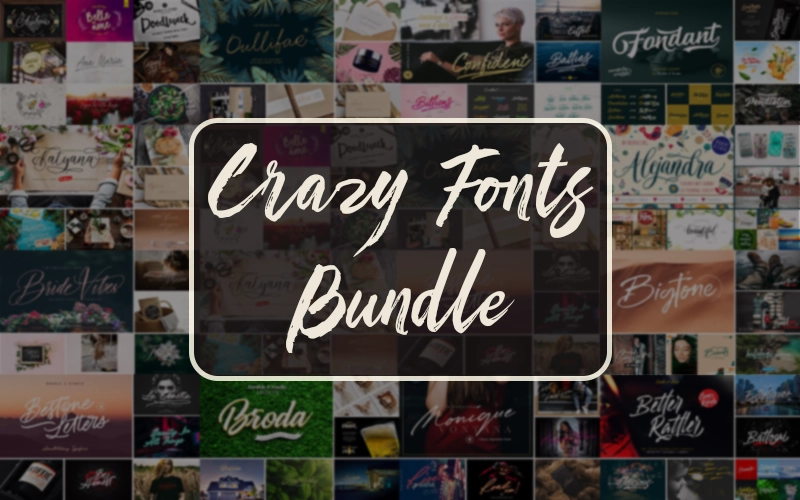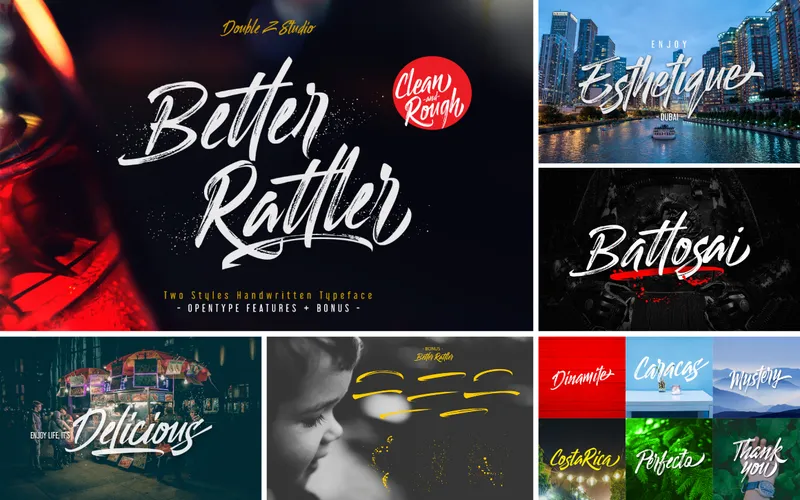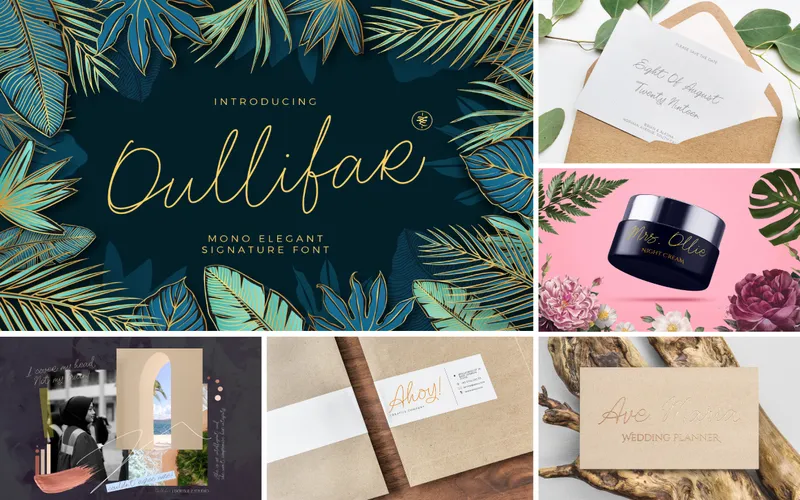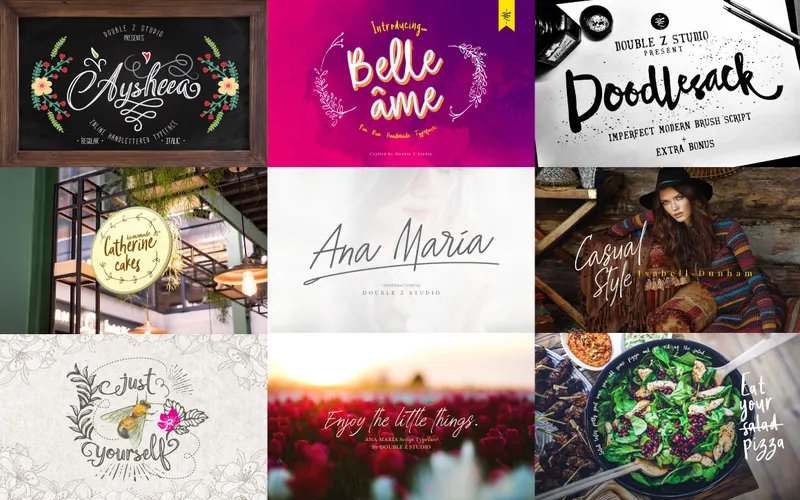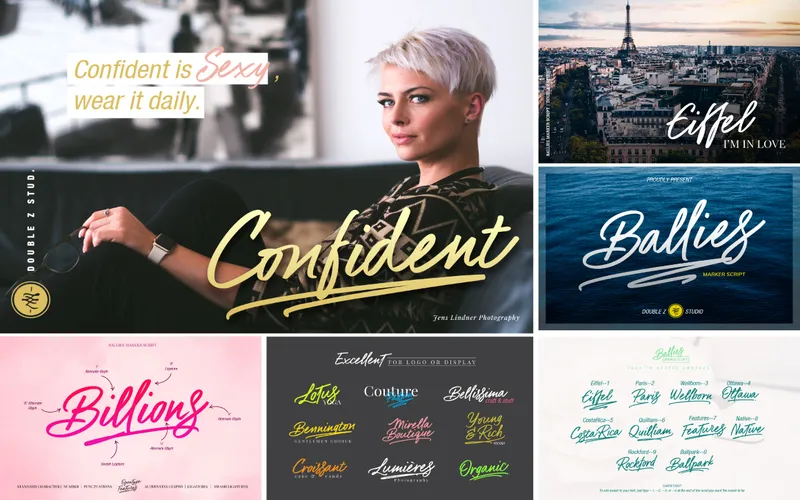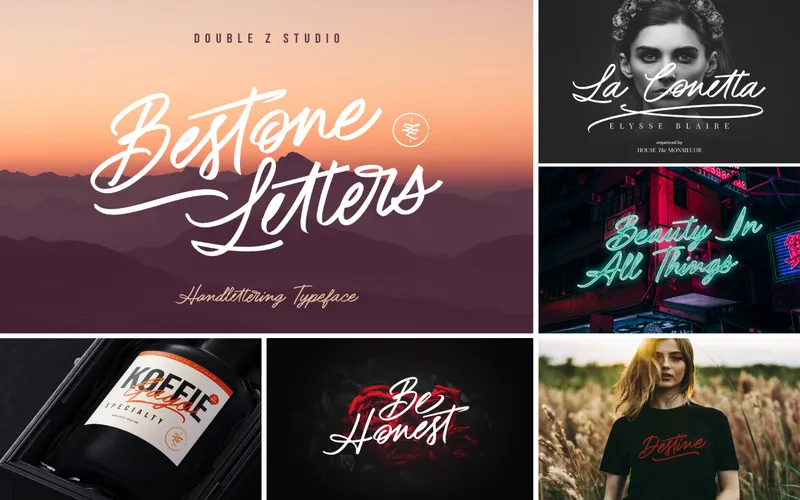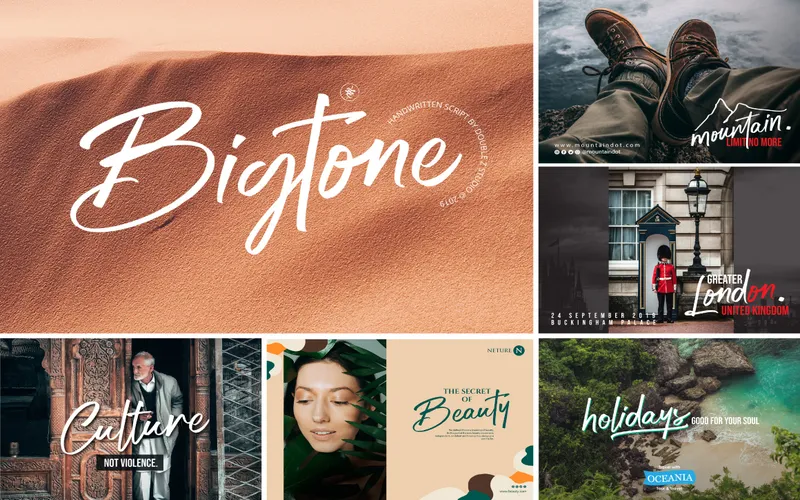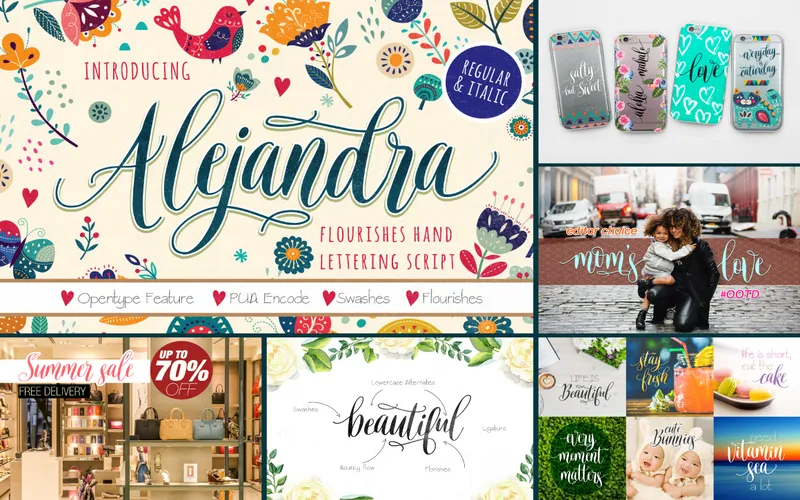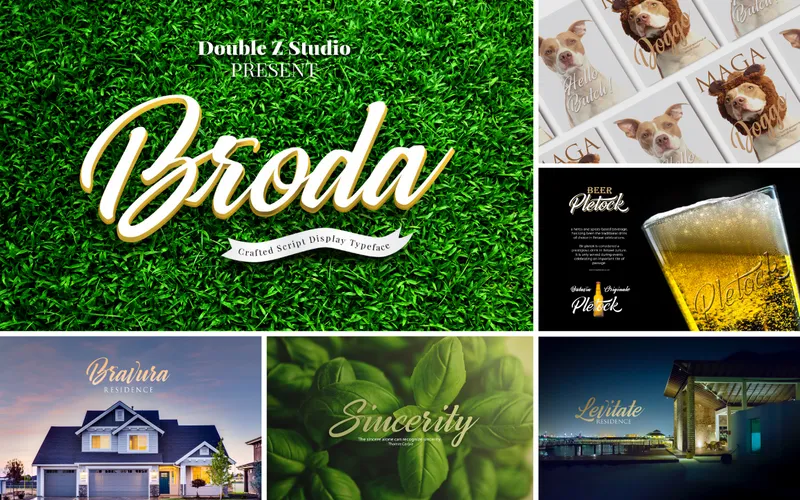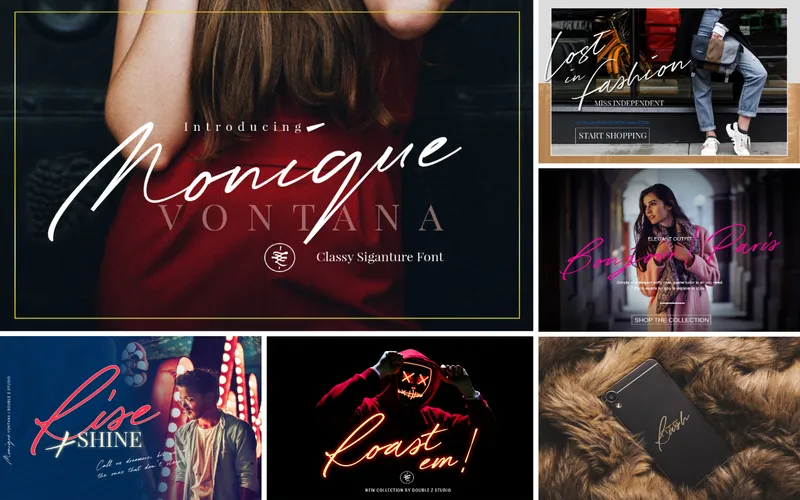
You have seen crazy movies, pictures, and people, it’s time to see some crazy fonts.! Push the boundaries and go crazy with your creativity using this –
Crazy Fonts Bundle
These fonts are perfect for creating standout designs like quirky logos, colorful posters, and lively social media posts.
From bold branding to visually stunning content, these fonts deliver the versatility and creativity needed to bring a dynamic and polished edge to all your designs.
This Crazy Fonts Bundle Includes:
- Alejandra
- Ana Maria
- Ballies
- Aysheea Inline Script
- Belle âme – Font Duo
- Bestone Script
- Doodlesack
- Bigtone
- Better Rattler Duo Styles
- Fondant Script
- Broda
- Bride Vibes
- Goozabumps
- Lovely Chaos
- Monique Vontana
- Oullifar Script
- Tatyana
- 17 Crazy Script Fonts
A Sneak Peak Into The Crazy Fonts: